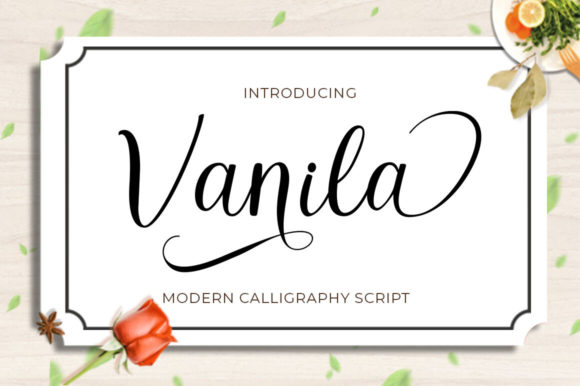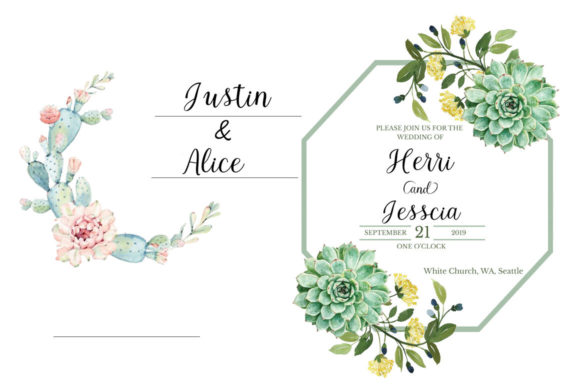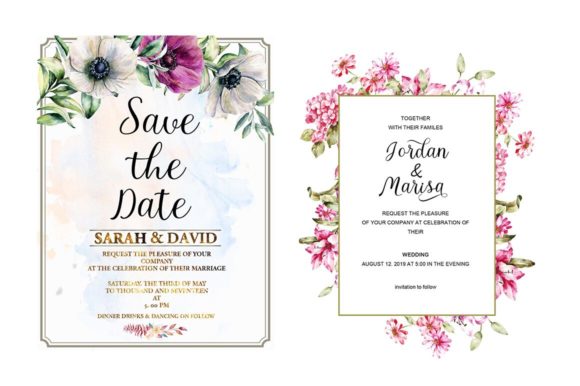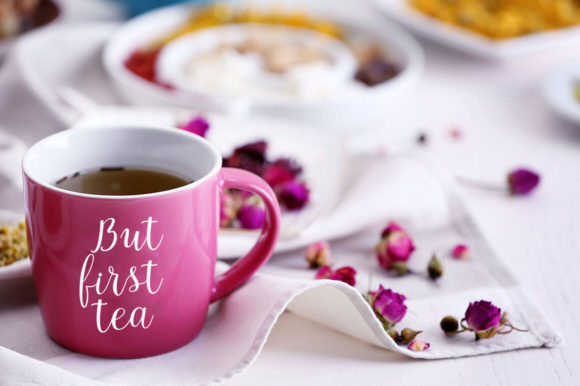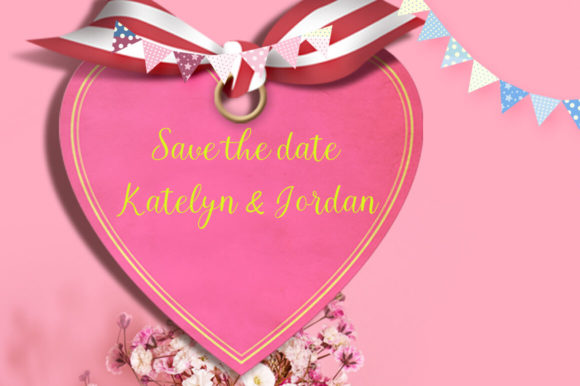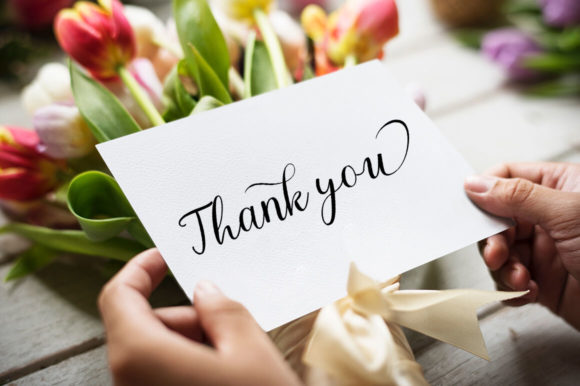
Vanila Font
About Vanila Font
Vanilla is a beautiful soft hand-lettered font. The playful rounded characters make it the perfect font for creating stunning crafting projects. Fall in love with its authentic feel and use it to create gorgeous wedding invitations, beautiful stationary art, eye-catching social media posts, and cute greeting cards.